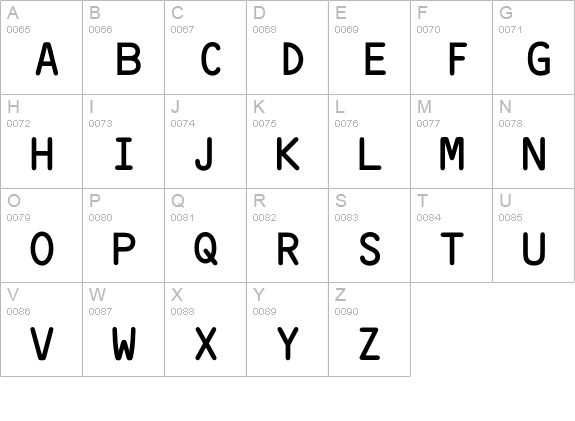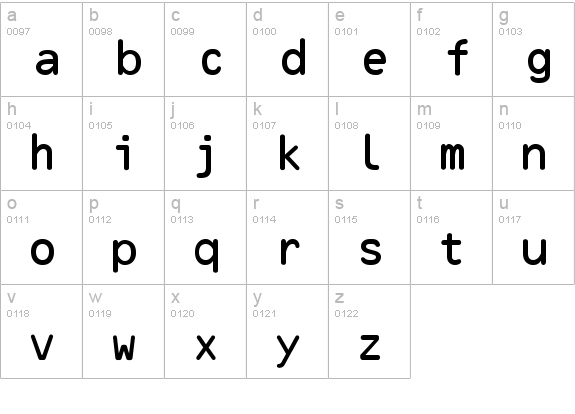
The OCR B font is a classic and professional typeface that is perfect for any project requiring a clean and modern look. Its sleek lines and geometric shapes make it easy to read and highly versatile. Whether you're designing a business card, brochure, or website, OCR B will give your project a polished and sophisticated appearance. Best of all, this font is available for free download at FontsMarket.com, making it a fantastic choice for budget-conscious designers looking to elevate their work with a high-quality typeface. Don't miss out on the opportunity to enhance your designs with the sleek and stylish OCR B font today!